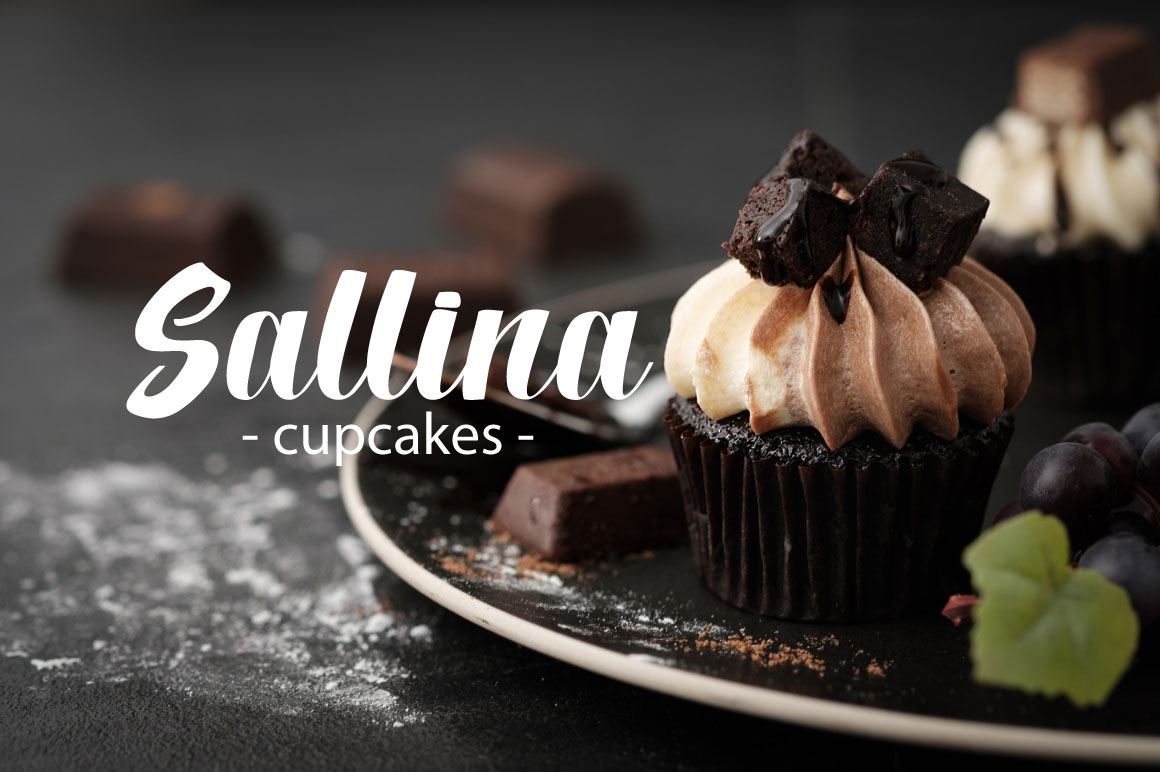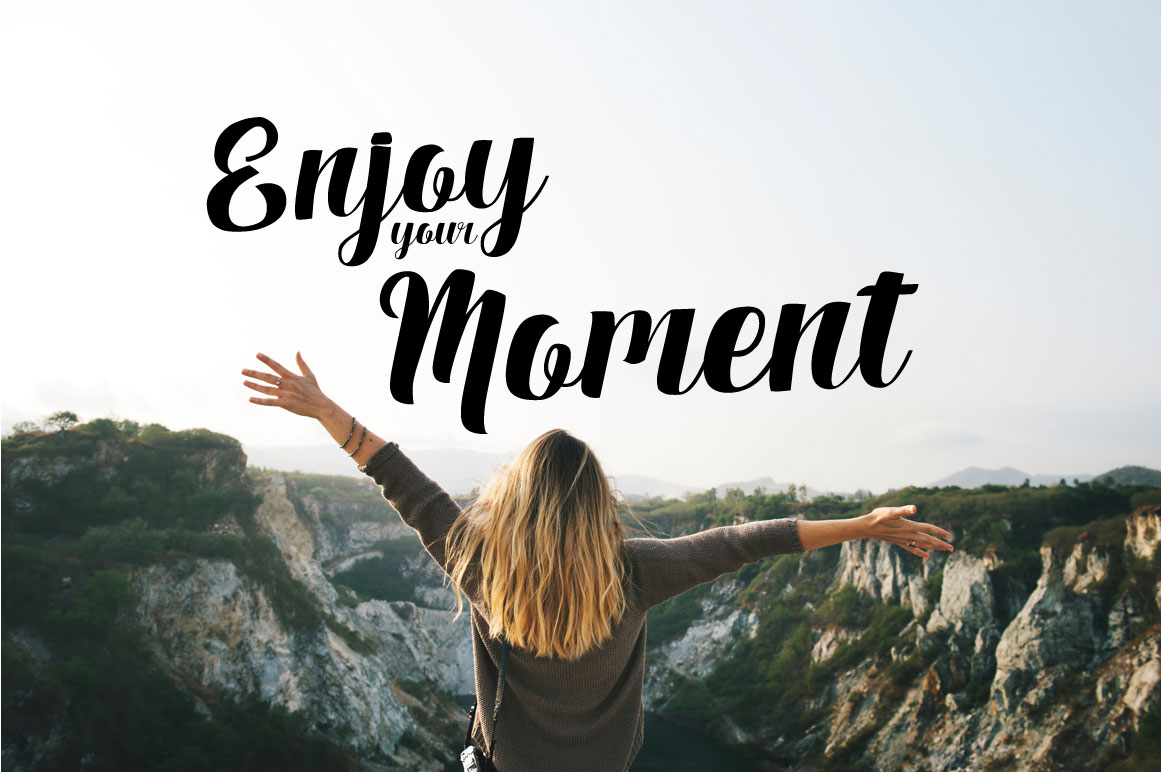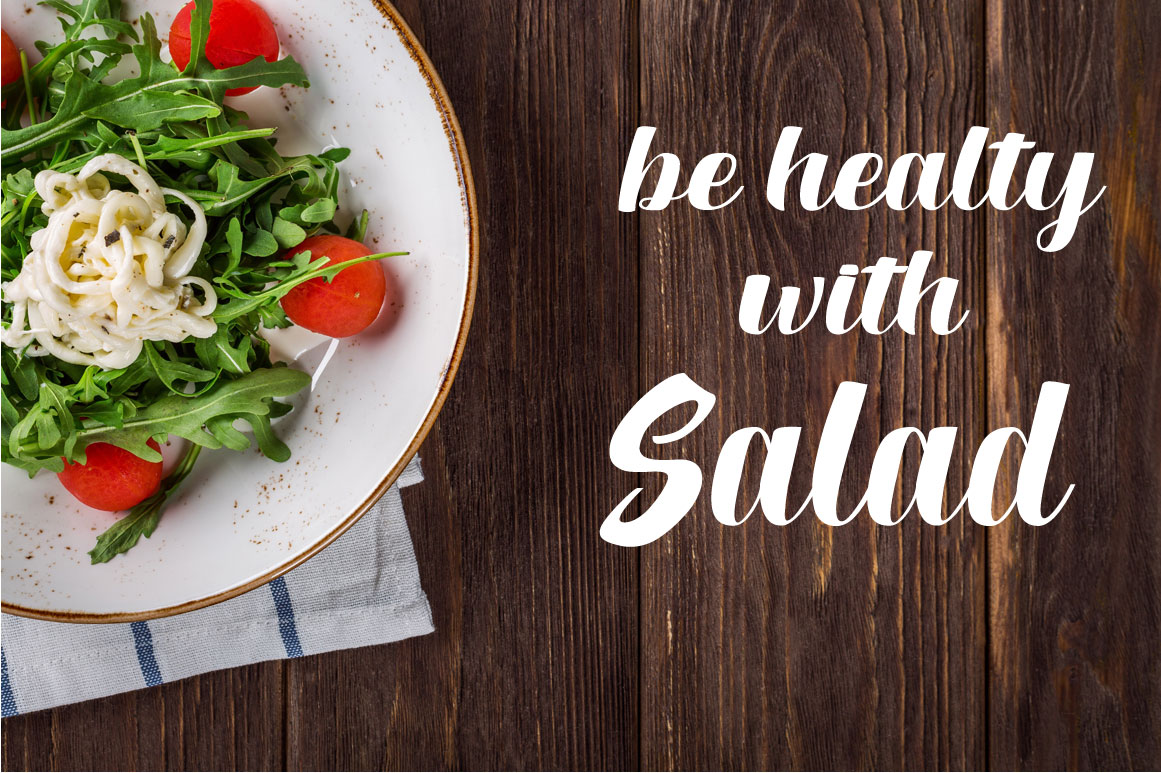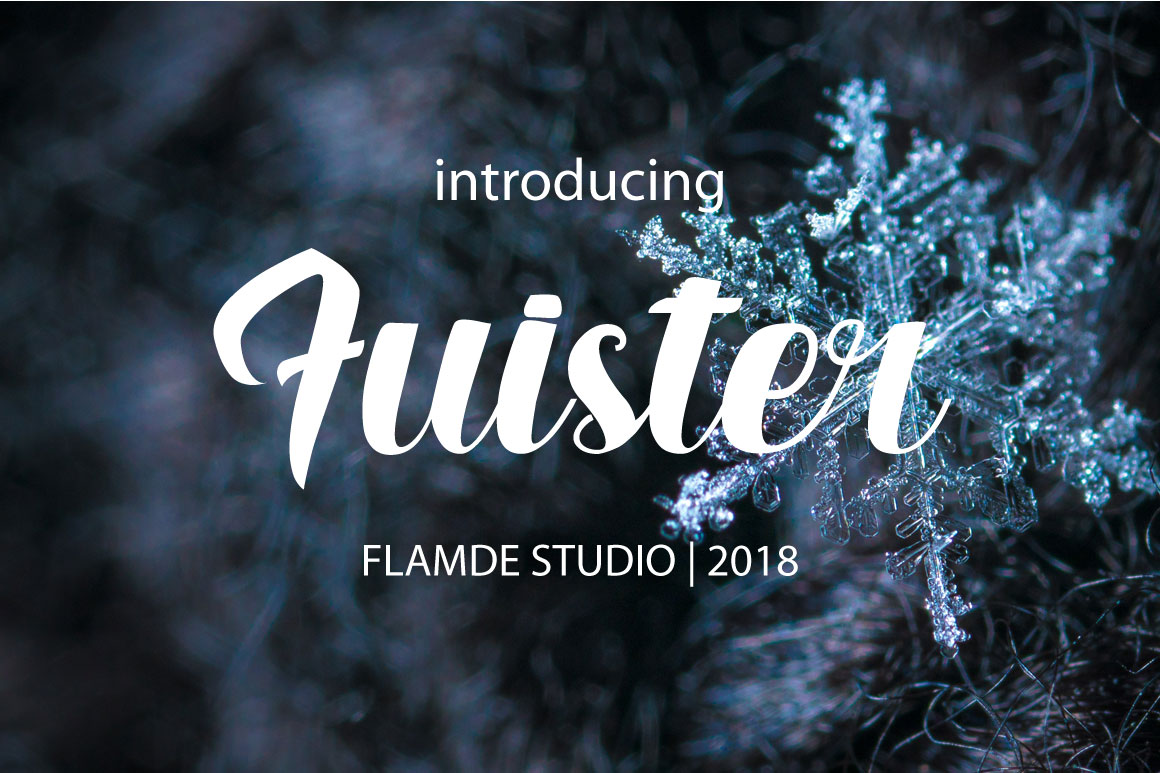
Fuister Script Font
Introducing Fuister Font. It is designed and shared by Flamde Studio. This font is very suitable for logo, clothing, magazine, poster, quotes, and others.